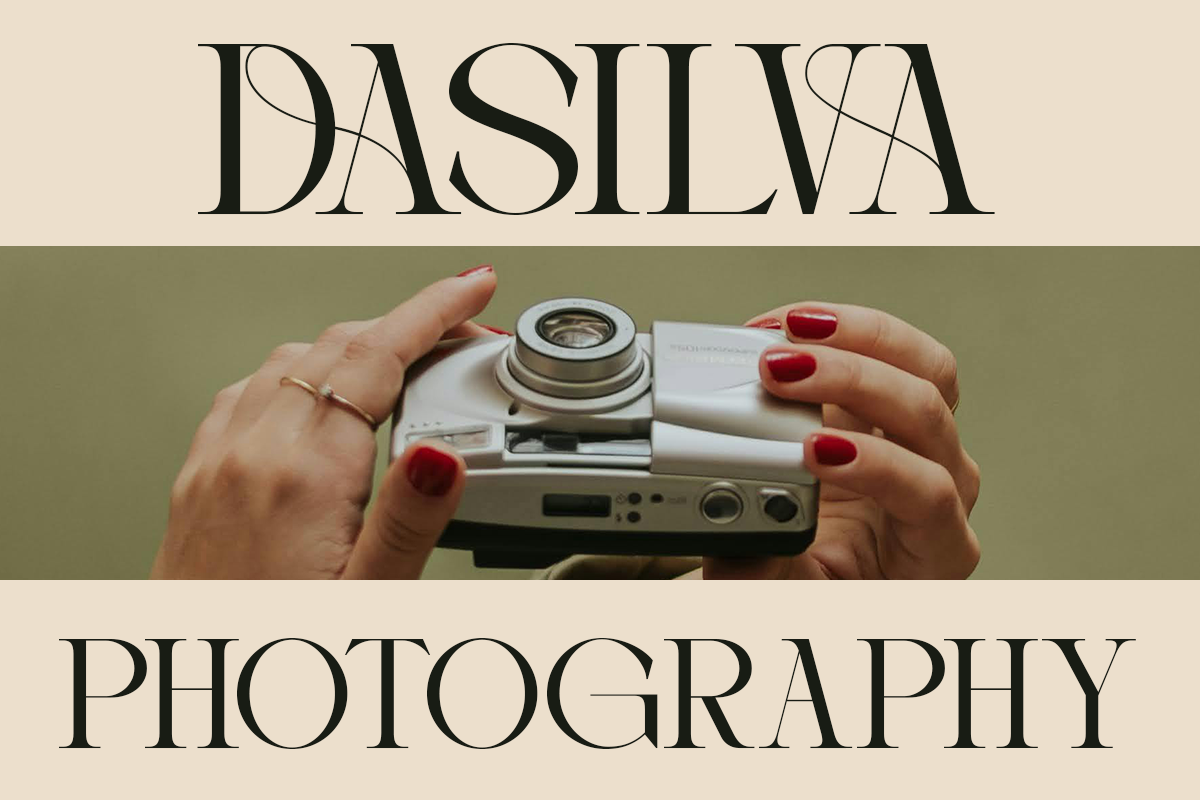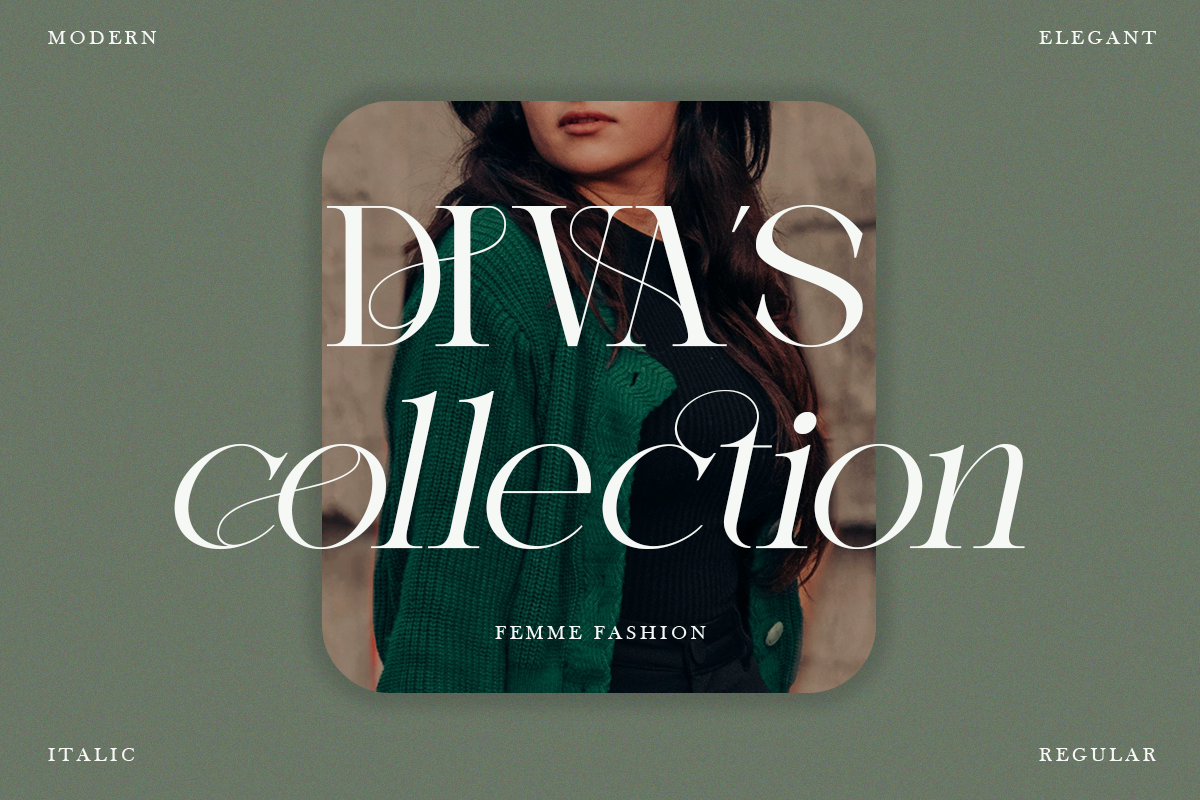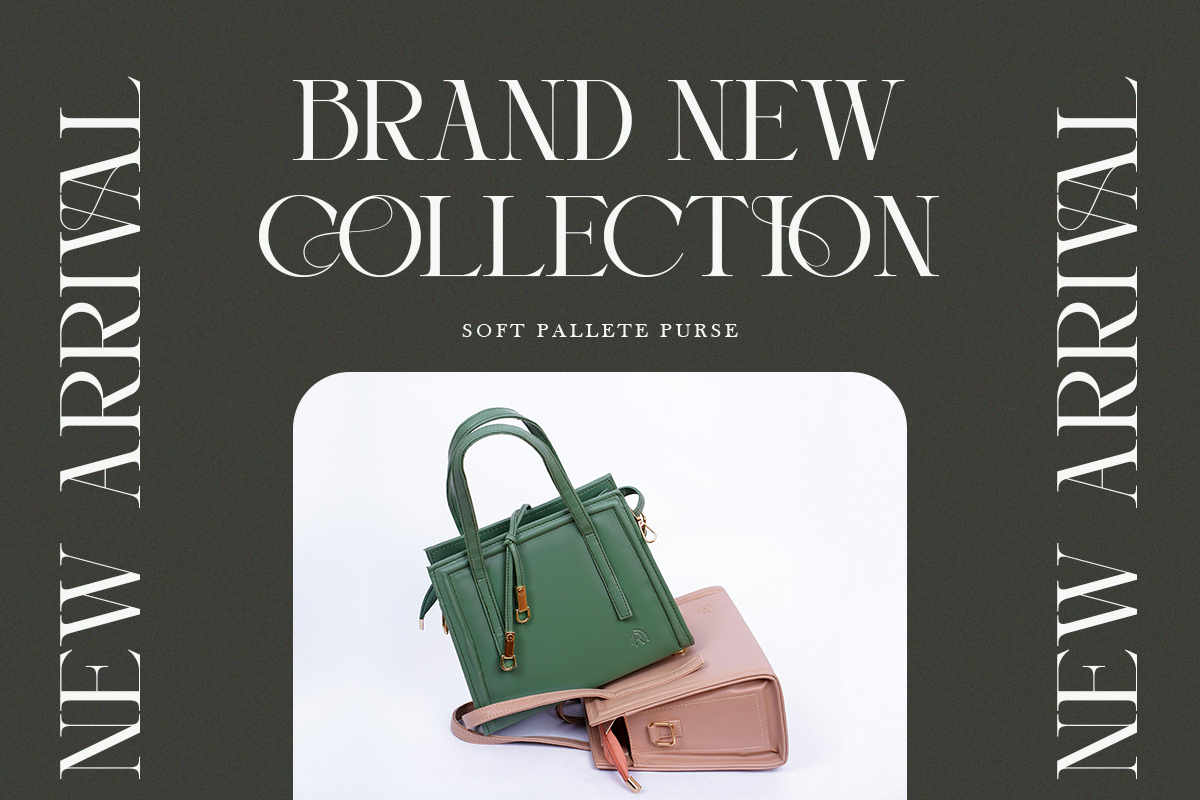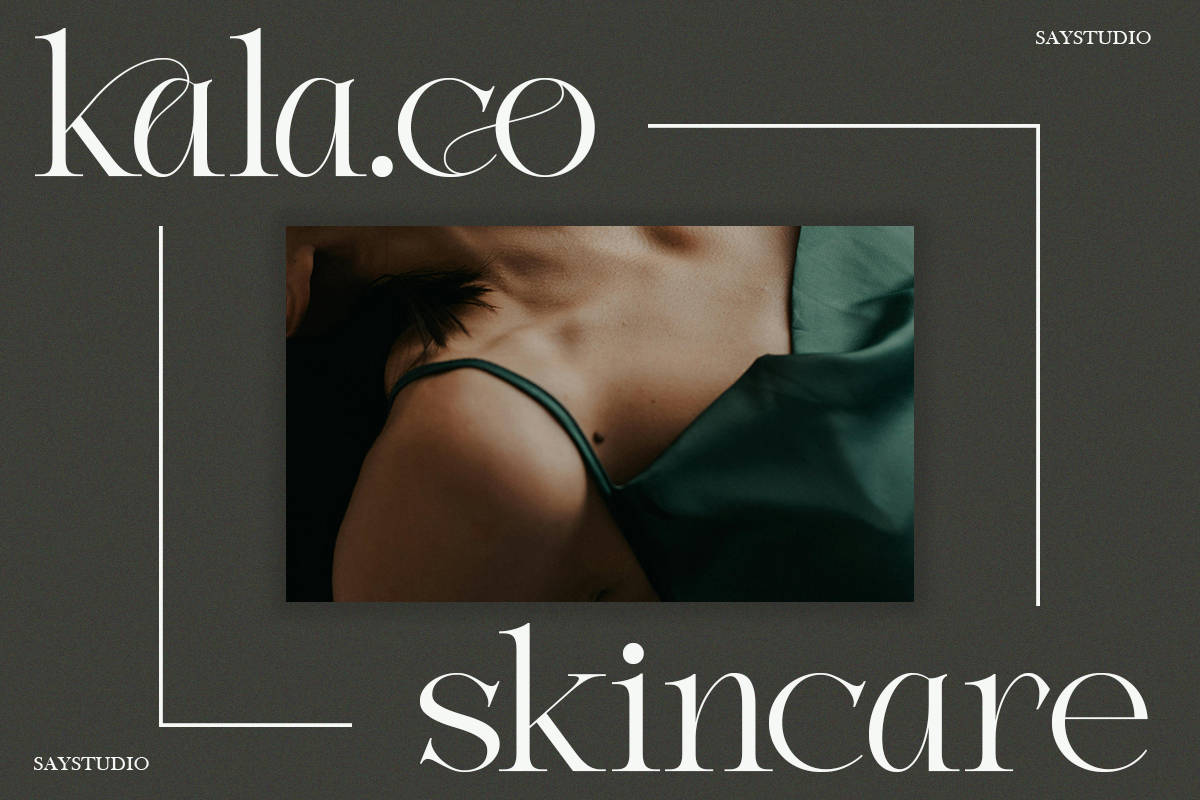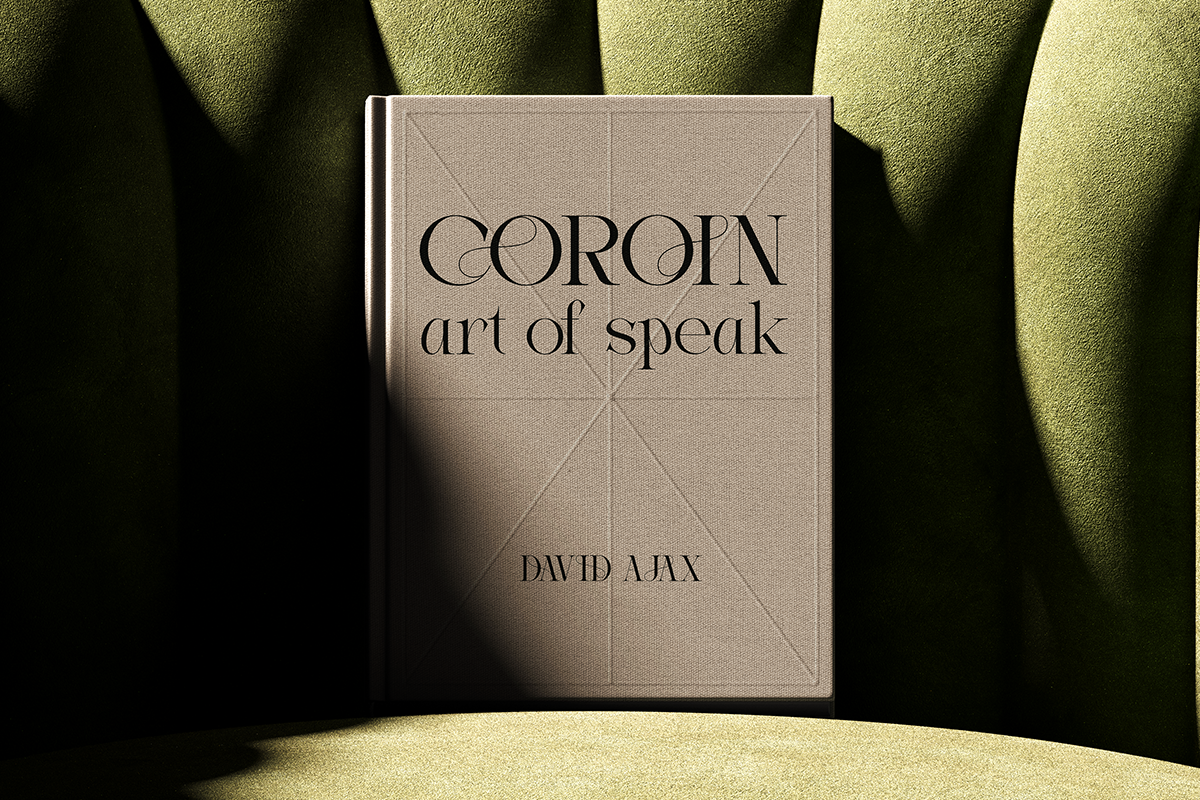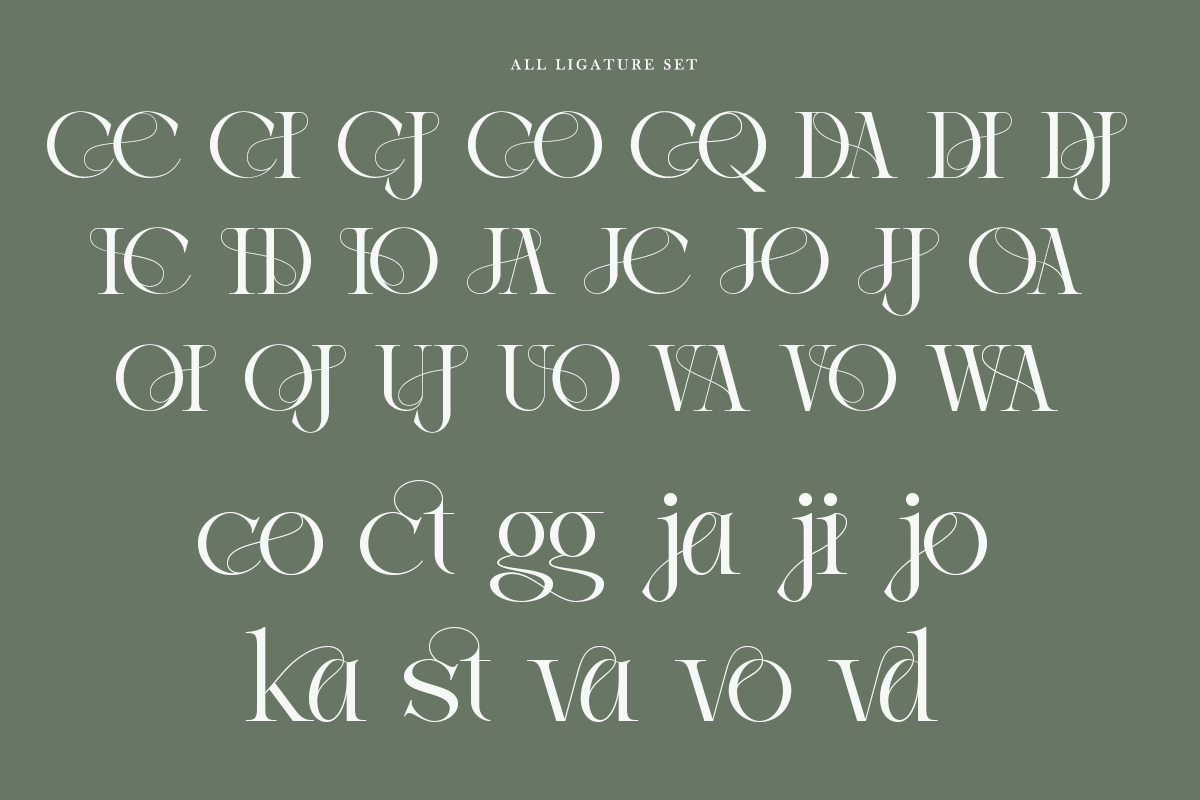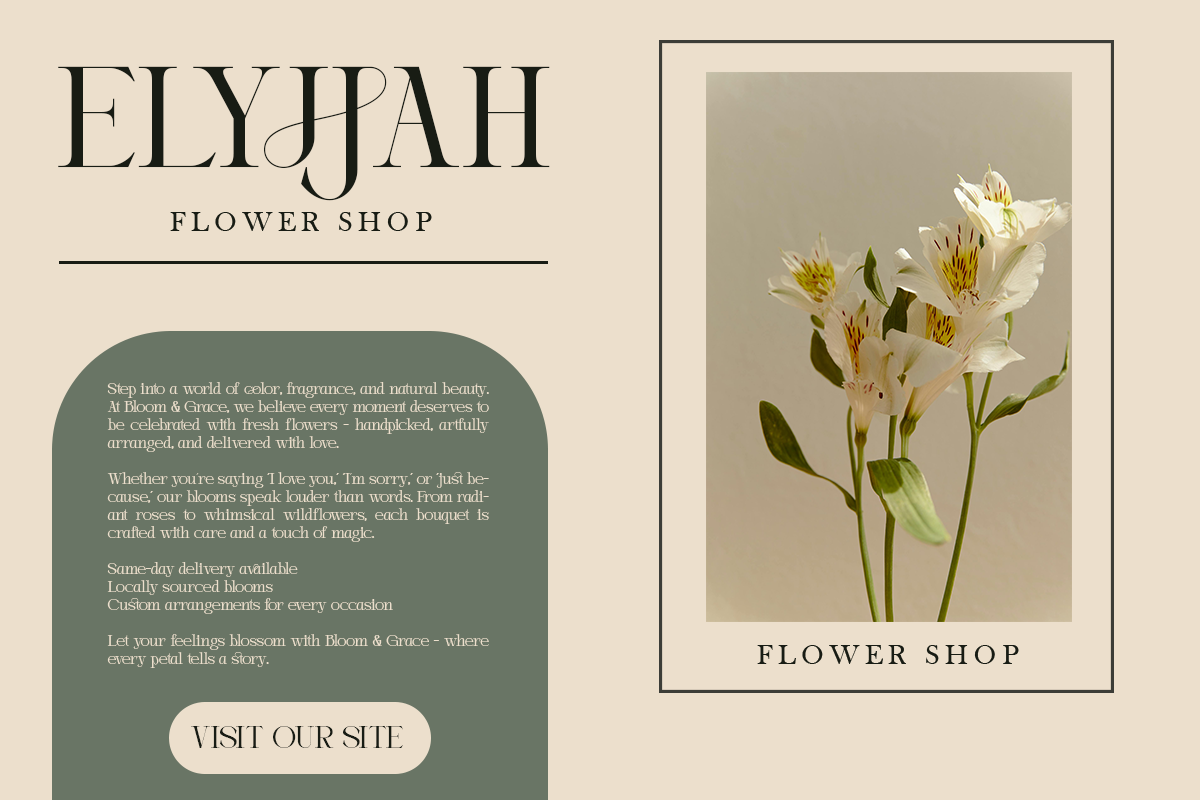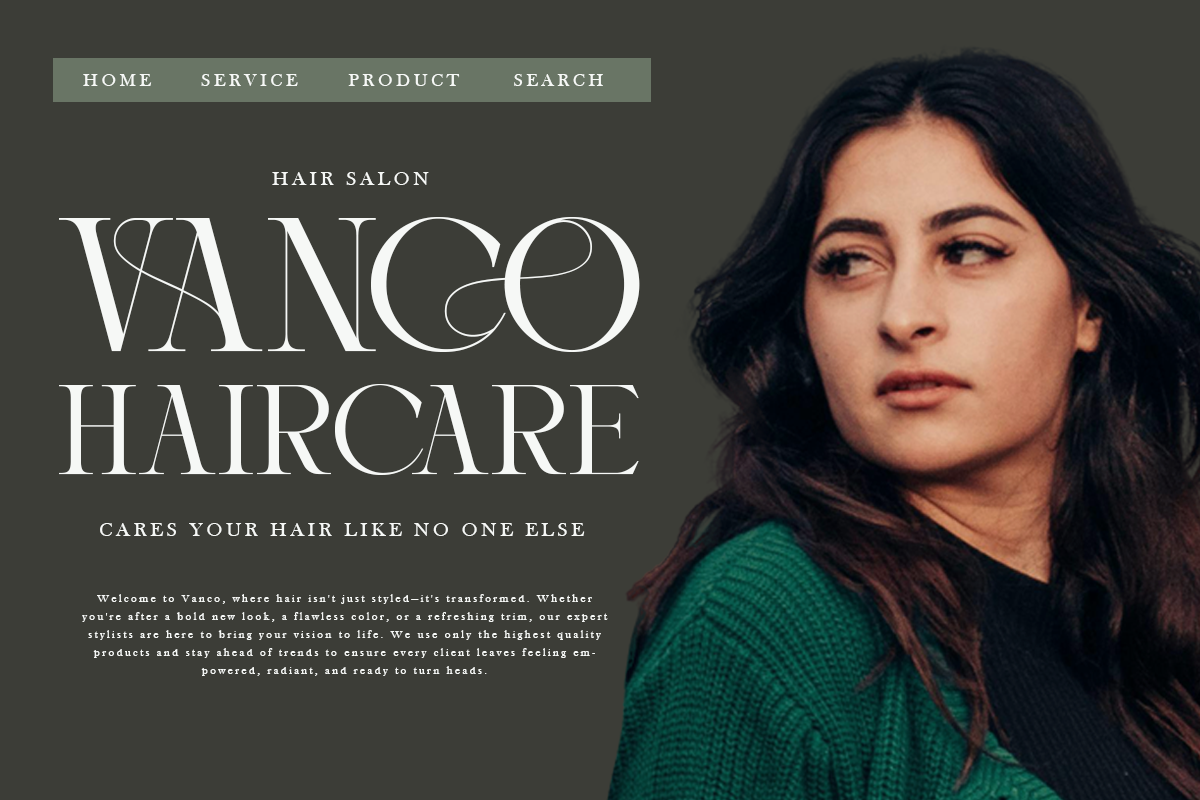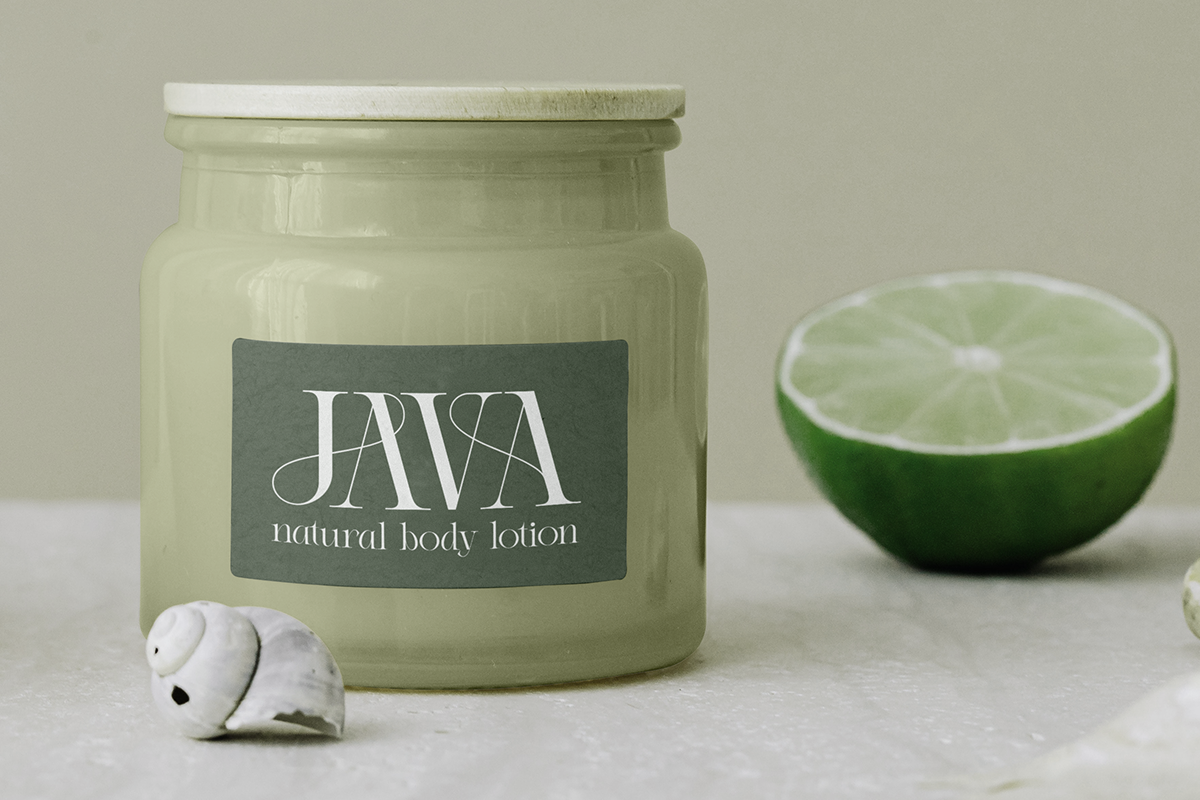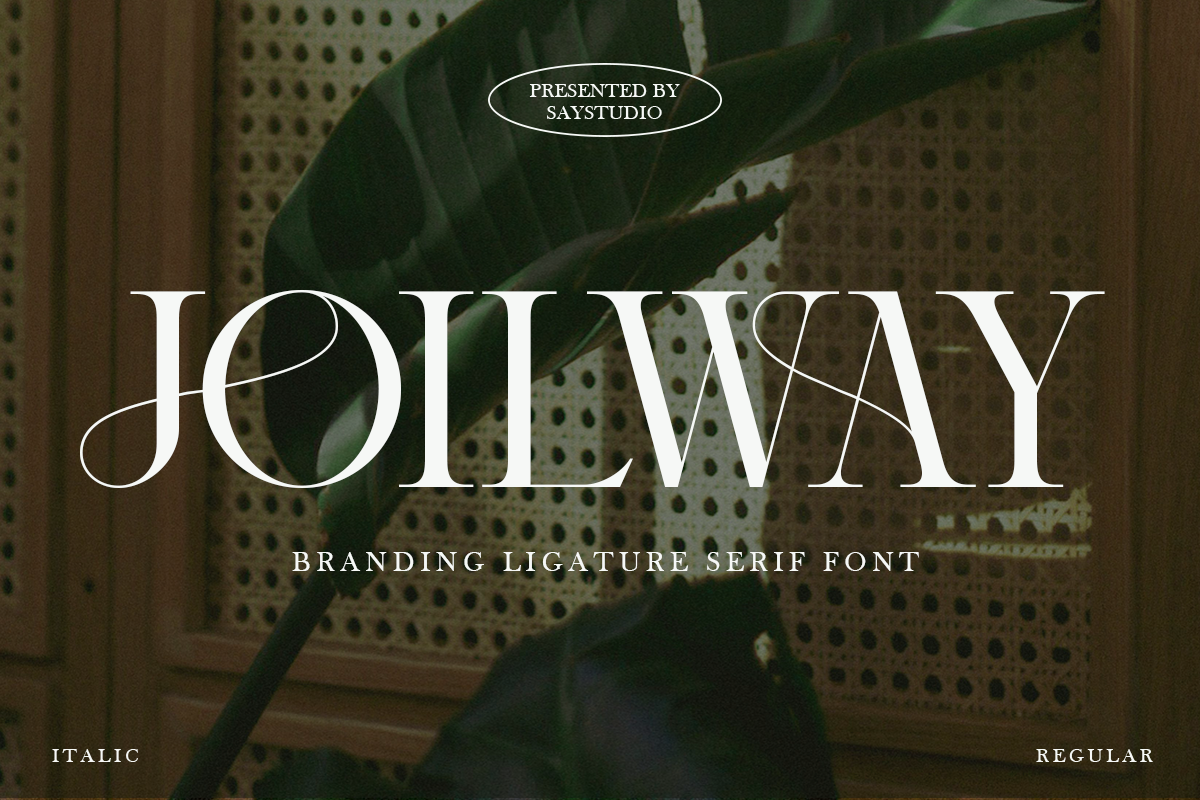
Joilway - Branding Serif Font
Introducing Joilway, an elegant serif ligature font Available in Italic and Regular styles, Joilway is perfect for luxury branding, editorial designs, invitations, and high-end typography projects. With its refined ligatures and sophisticated character set, this font enhances any design with a premium, professional look. Elevate your creativity with Joilway— download now and bring elegance to your next masterpiece!
- Ligatures Character
- Multilingual Suppport